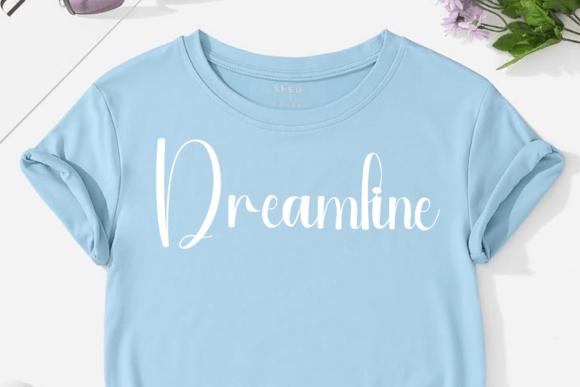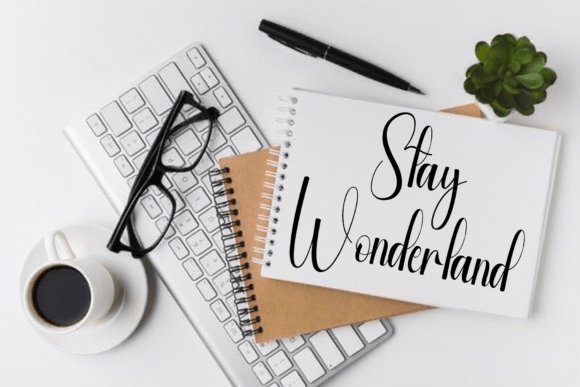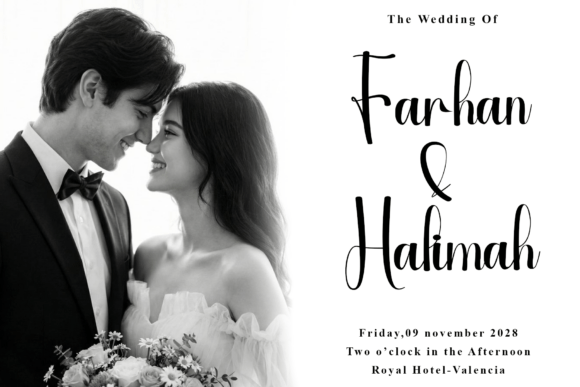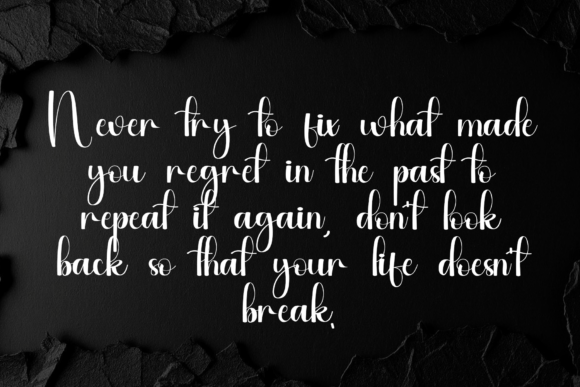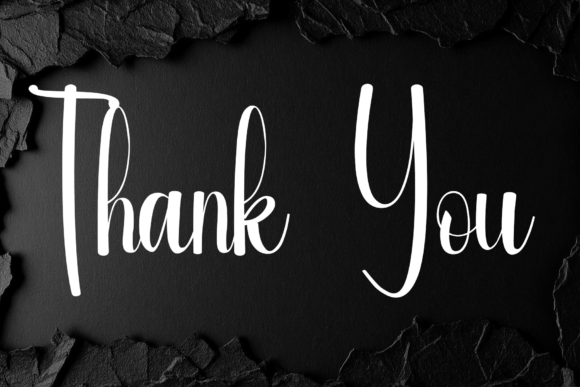
The Galahad Font: A Breath of Fresh Air for Your Designs
Have you ever been in the middle of a design project, and suddenly, you’re stuck on finding the perfect font? I recall a recent experience where I was working on a travel photography portfolio, and my client requested a font that would evoke a sense of adventure and elegance. After scouring through countless options, I stumbled upon the Galahad Font, and it was love at first sight! ✨
Described as a “unique and professional” addition to the modern handwritten collection, Galahad Font is designed to bring clarity and crisp elegance to your designs. Its tall, thin strokes with a subtle, airy slant offer a refined aesthetic that feels as fresh as a mountain breeze.
- ✨ Clean and approachable style: Galahad Font is perfect for travel photography, branding for outdoor gear, and sophisticated web design.
- ✅ Excellent legibility: Even at smaller font sizes, Galahad remains clear and easy to read.
- 💡 Versatile: It can be used for both digital and print projects, making it a great addition to any design library.
While Galahad Font is an excellent choice, there are a few things to keep in mind: ⚠️
- 🤔 Limited use in very formal or traditional designs: Galahad’s modern and elegant feel might not be the best fit for very formal or traditional designs.
- ⚠️ Requires careful use of OpenType features: To get the most out of Galahad, you’ll need to familiarize yourself with OpenType features and glyphs.
While the actual designer of Galahad Font remains a mystery, it’s easy to imagine that they were inspired by the crisp elegance of mountain landscapes and the sophistication of modern design. Perhaps they wanted to create a font that would evoke a sense of adventure and refinement, perfect for travel and outdoor enthusiasts.
Q: What type of projects is Galahad Font best suited for?
A: Galahad Font is ideal for travel photography, branding for outdoor gear, and sophisticated web design.
Q: Is Galahad Font available in different weights and styles?
A: Yes, Galahad Font comes in various weights and styles, allowing you to customize your designs.